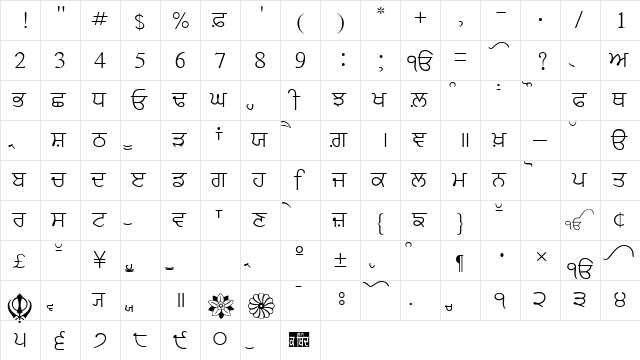
AnmolLipiLight Regular
Design Context for AnmolLipiLight Typeface
AnmolLipiLight takes a measured approach to typography — its balanced proportions and neutral character make it a reliable workhorse for both digital and print work. Its slender proportions lend an understated elegance to any composition.